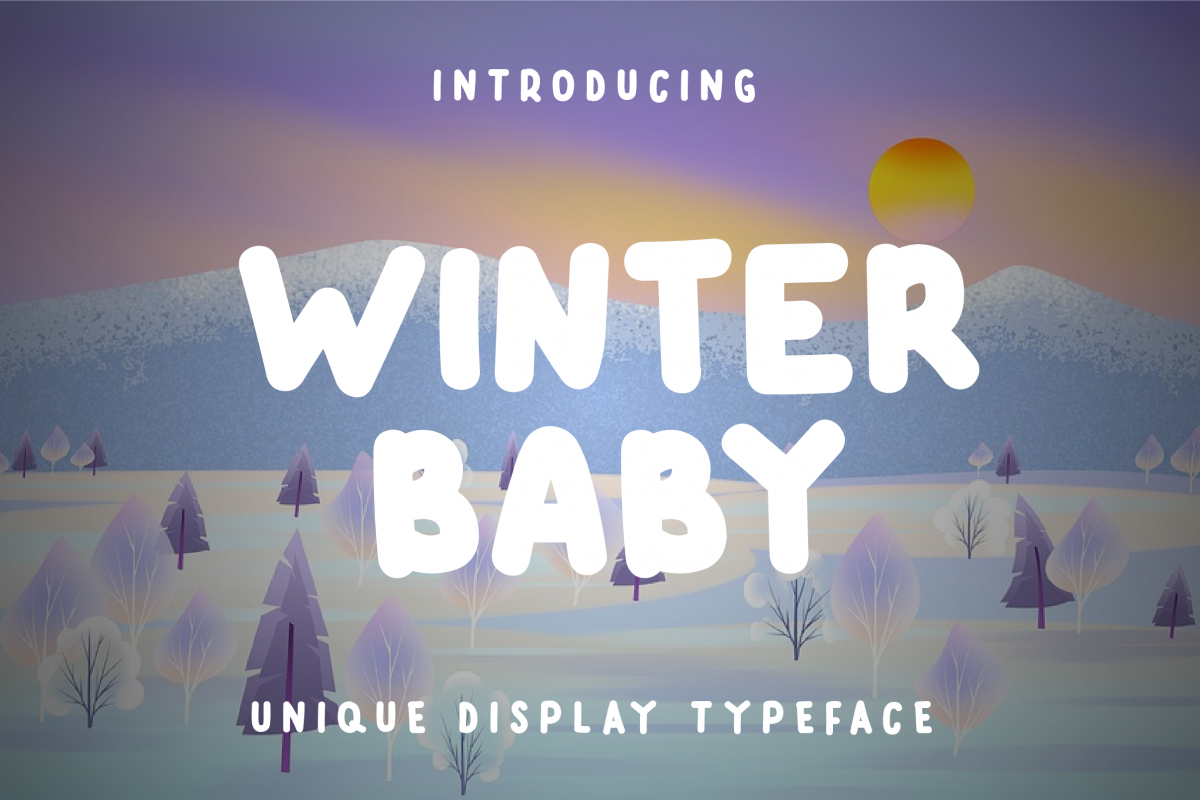
Winter Baby Display Font
WINTER BABY
Winter Baby is a sweet and simple hand-drawn font. His brave character adds a lot of personality to any project. It is suitable for logos, for items to purchase with unlimited sales, and can be changed into web fonts!